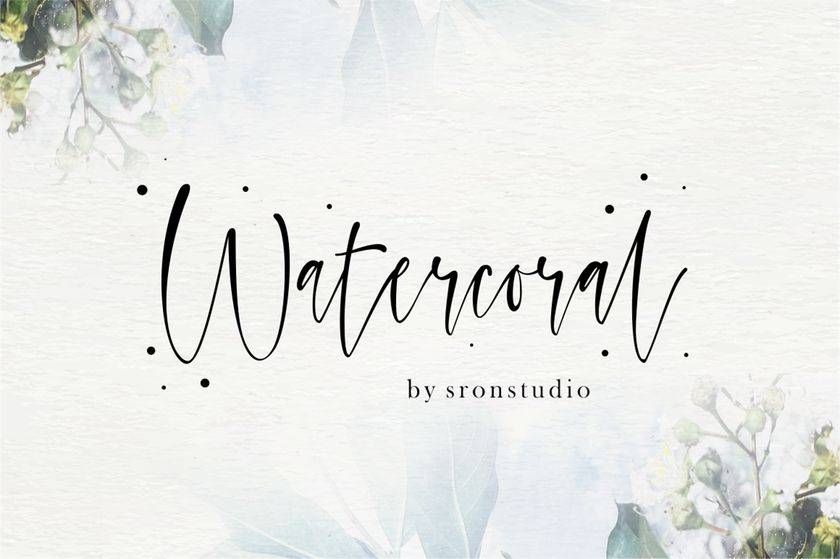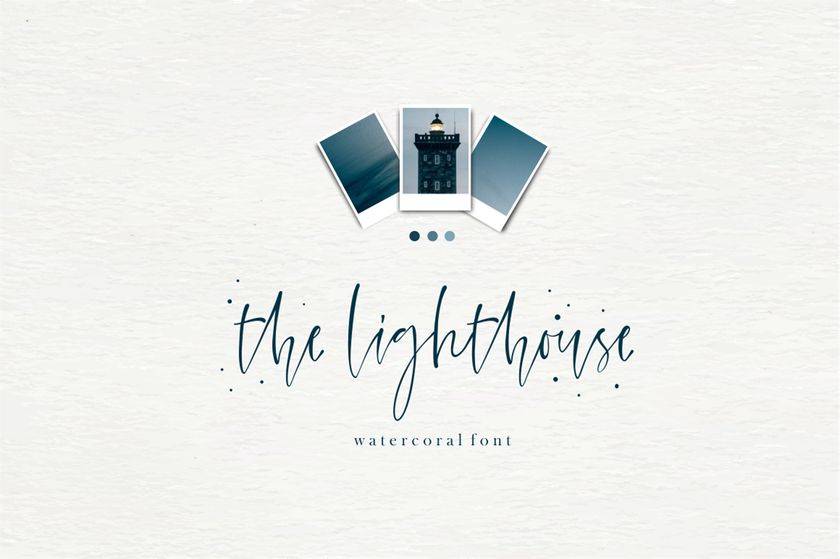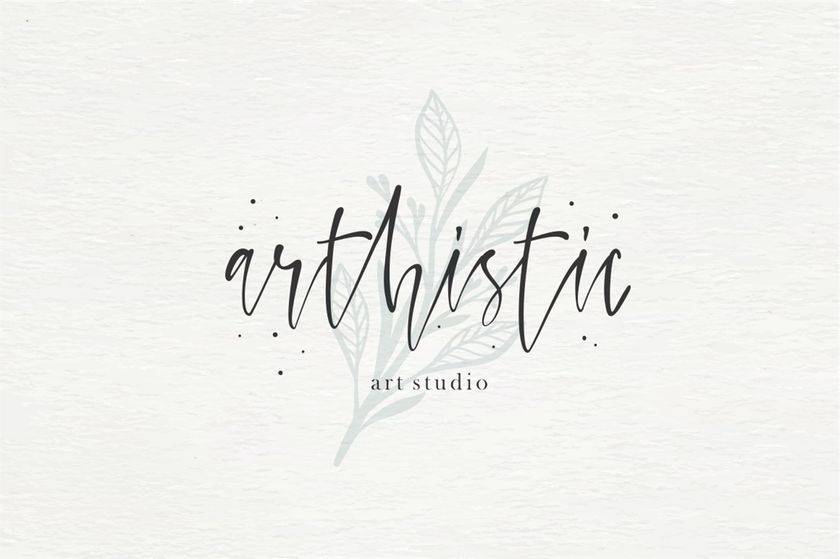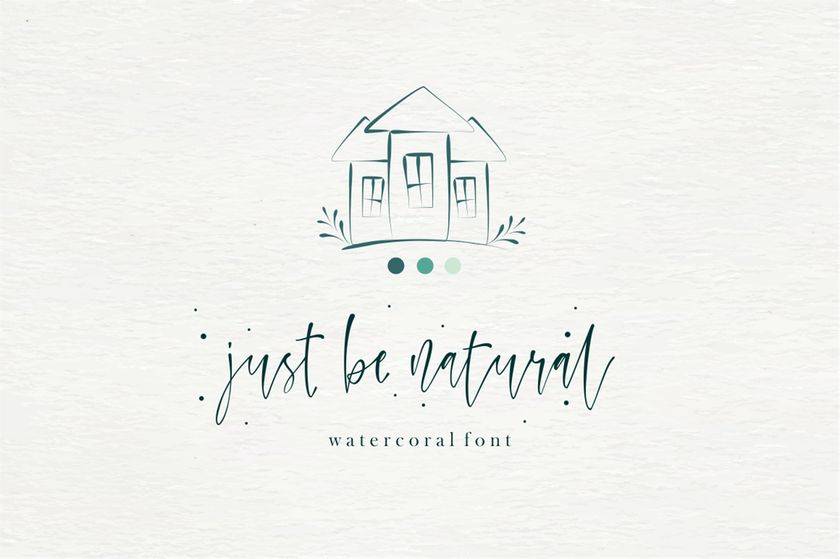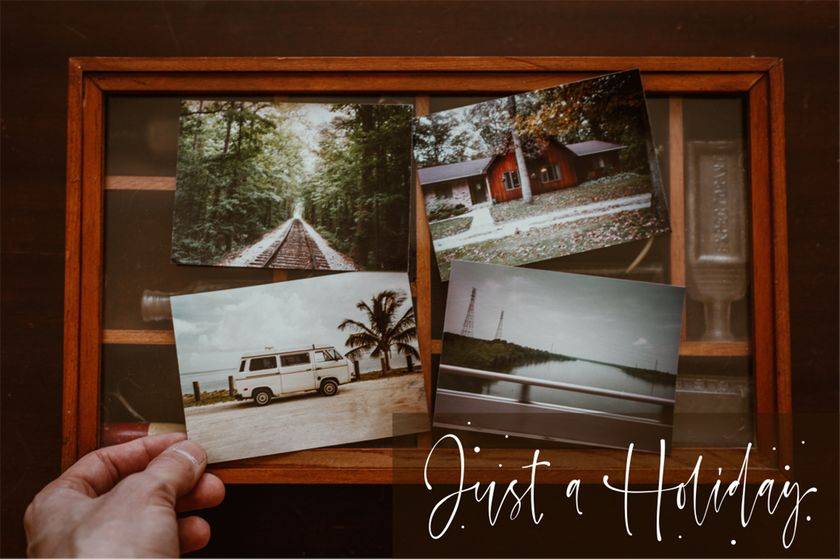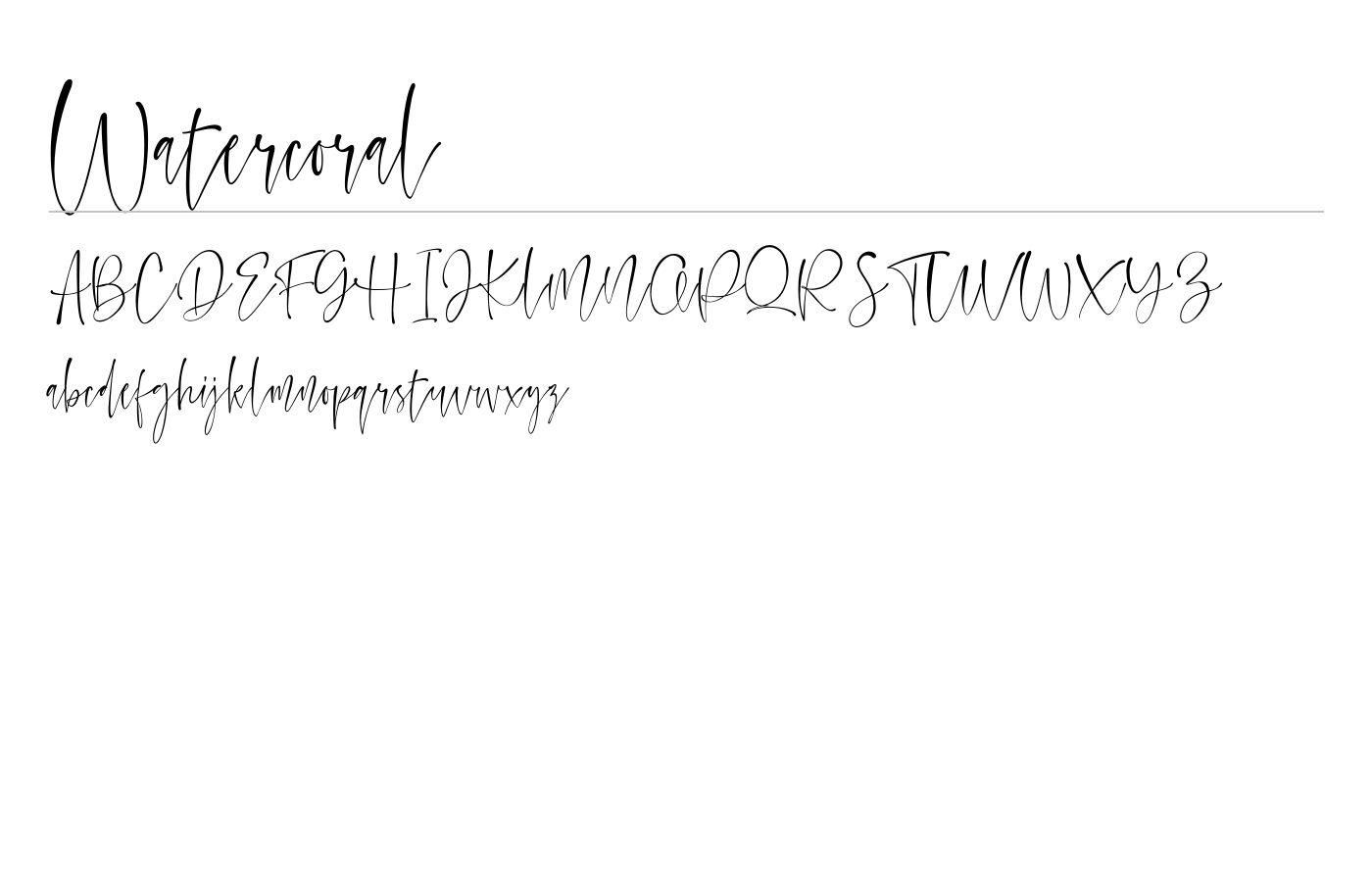
Watercoral is a delicate, handwritten script font that exudes a natural, elegant charm with its flowing, thin strokes and airy letterforms. Its tall, slender characters and playful, slightly irregular shapes give it a personal, artistic feel, making it perfect for wedding invites, branding, and creative projects that seek a soft, sophisticated touch. This font works best in headlines or decorative use where a graceful, handcrafted style is desired.
Watercoral Font
About Watercoral Font
| Font family | Watercoral Font |
| Designer | Sronstudio |